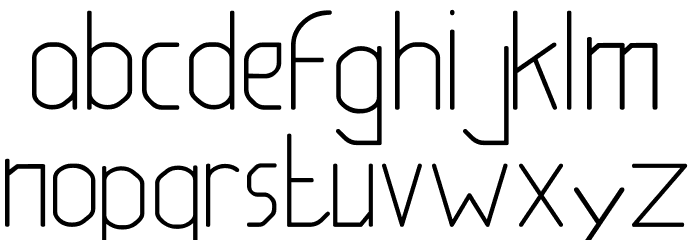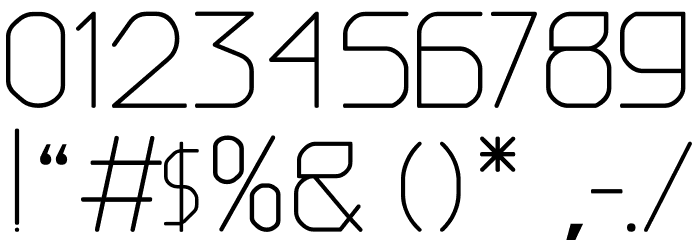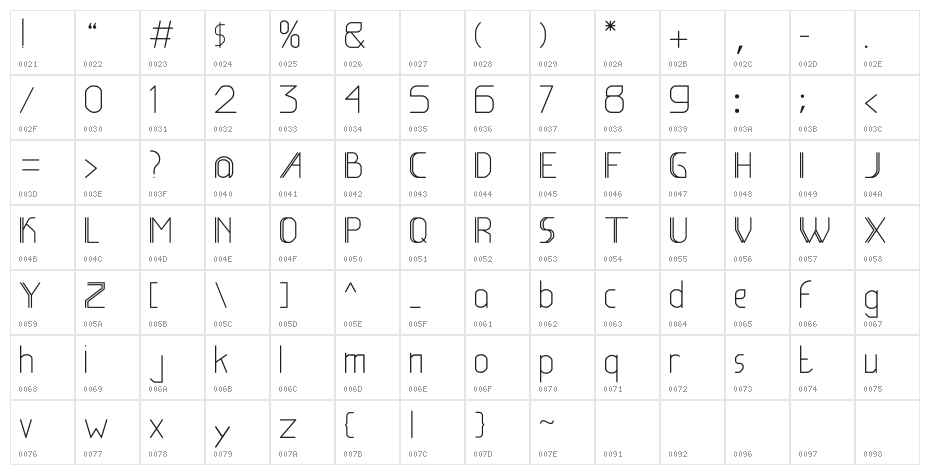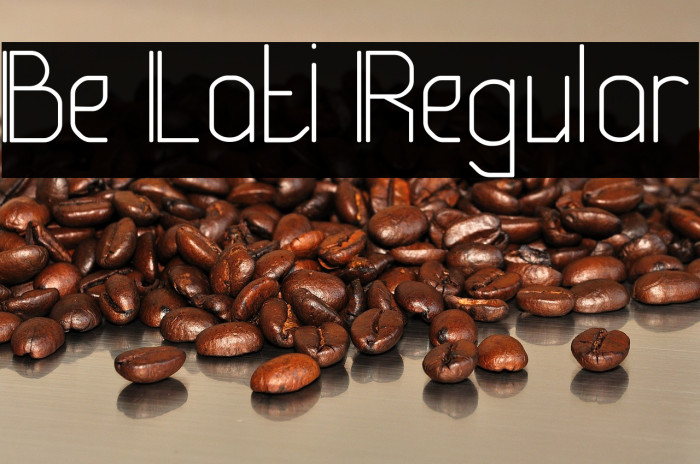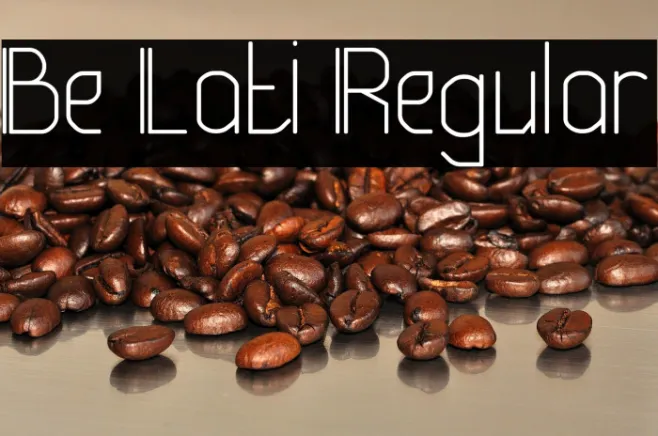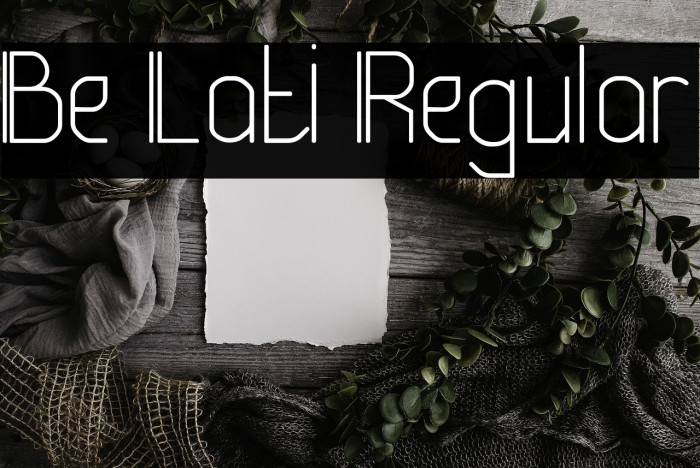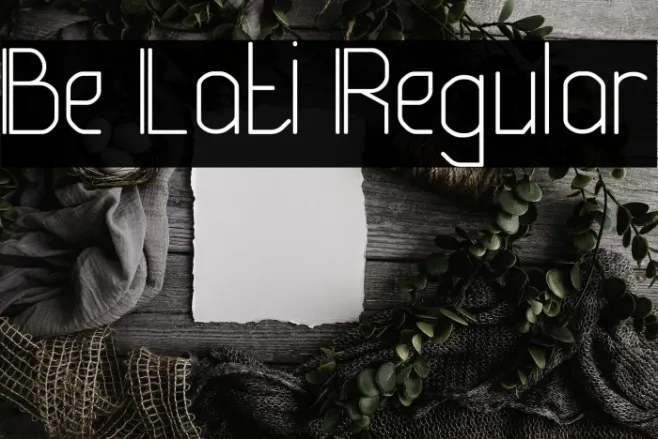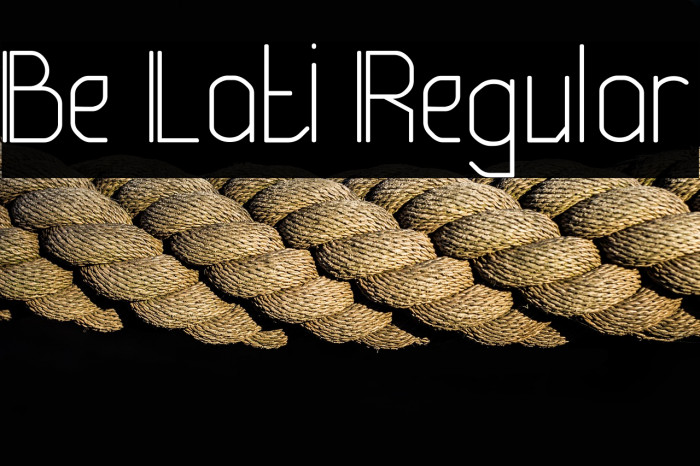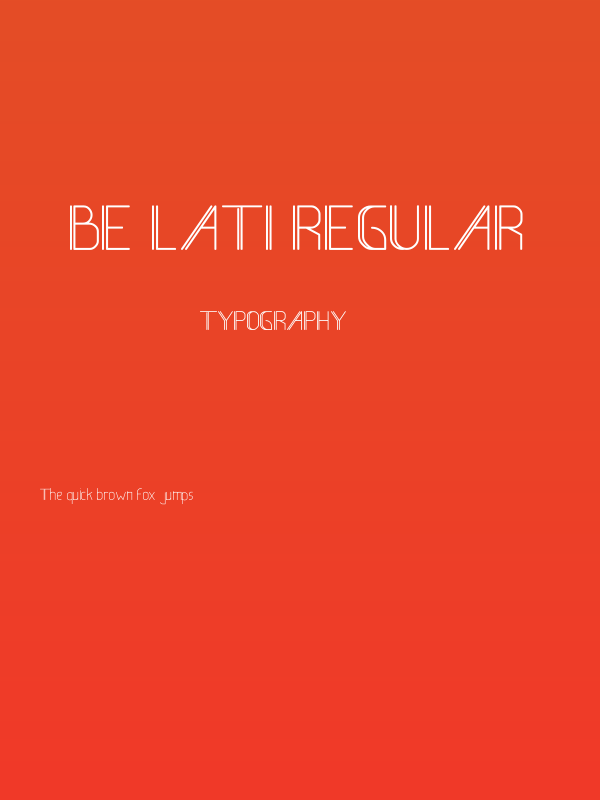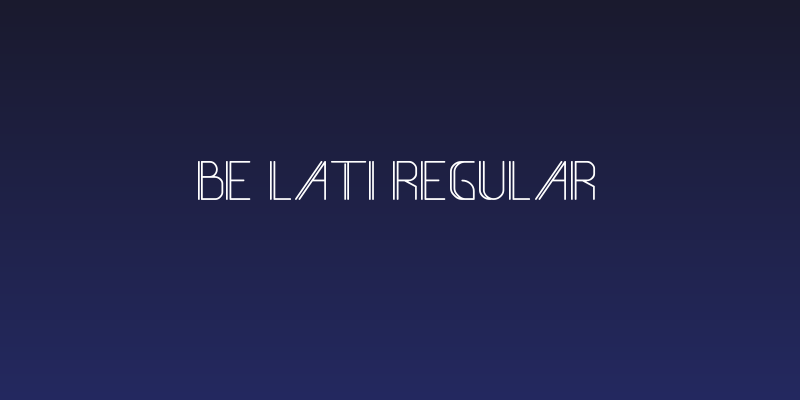
Be Lati Regular Font
This font features a modern, geometric design with clean lines and a minimalist aesthetic. The uppercase letters are characterized by their angular forms and consistent stroke width, creating a sense of uniformity and precision. The lowercase letters maintain the geometric theme, with rounded edges that add a touch of softness to the overall look. The numerals are clear and legible, following the same design principles as the letters. Special characters are included, each designed to complement the font's overall style. This font's simplicity and clarity make it versatile for various design applications.
A modern, geometric font with clean lines and a minimalist aesthetic.
- Font: Be Lati Regular
- Proposed Projects: Ideal for branding, logos, modern web design, and editorial layouts.
- Category: Sans-Serif
- Use Case: Logos, Headlines, Editorials